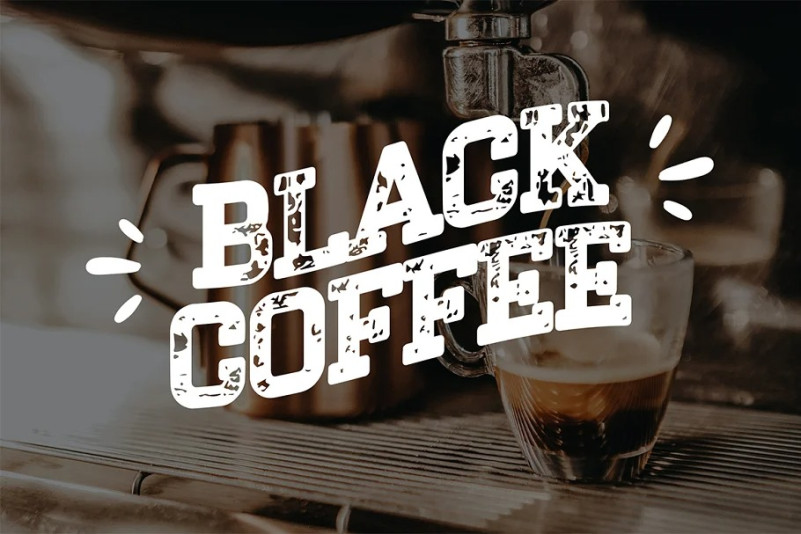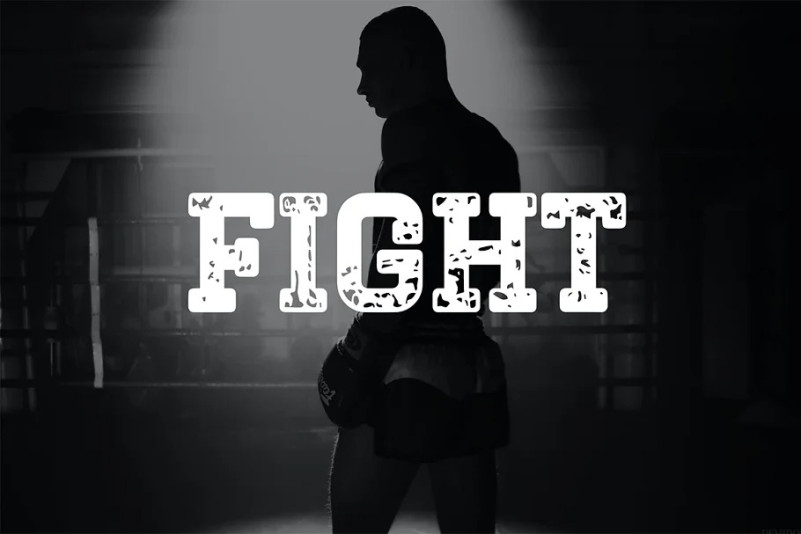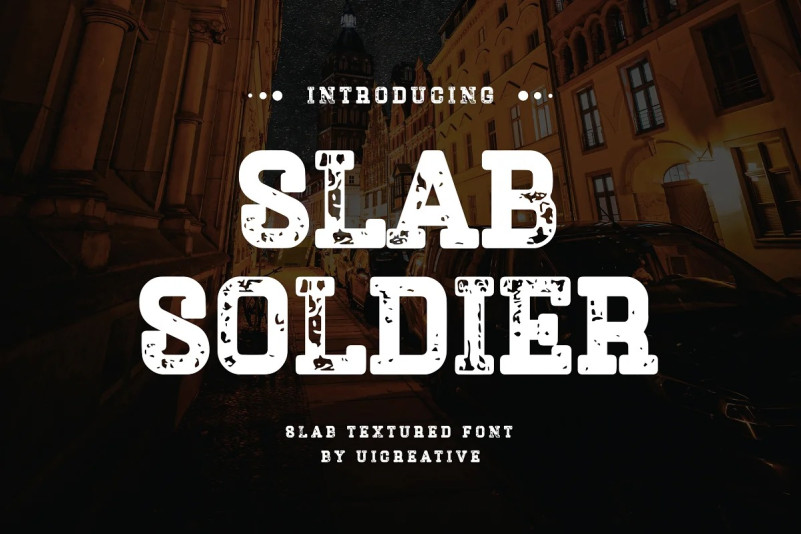
Slab Soldier Font
Slab Soldier Font – Textured Font. Modern Serif font that feels beautiful classy, elegant, and modern. This font is ideally suited for a wide variety of projects, such as signature, stationery, logo, wedding, typography quotes, magazine or book covers, website headers, clothing, branding, packaging design, and more. Also, fashion-related branding or editorial design displays both masculine and feminine qualities.